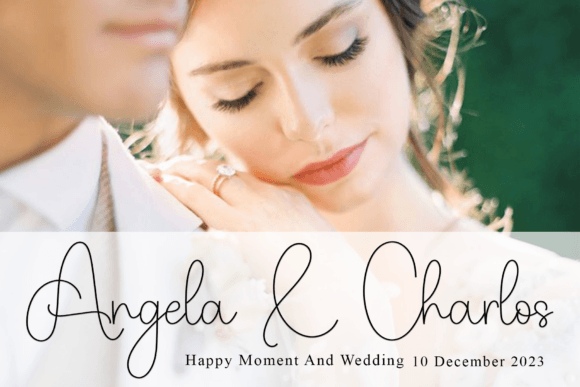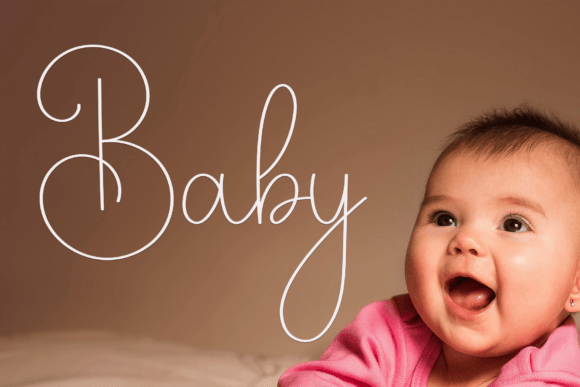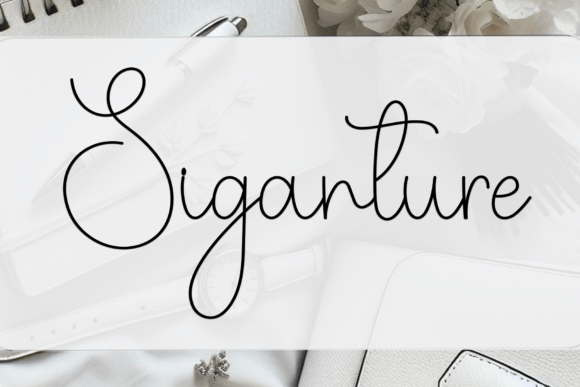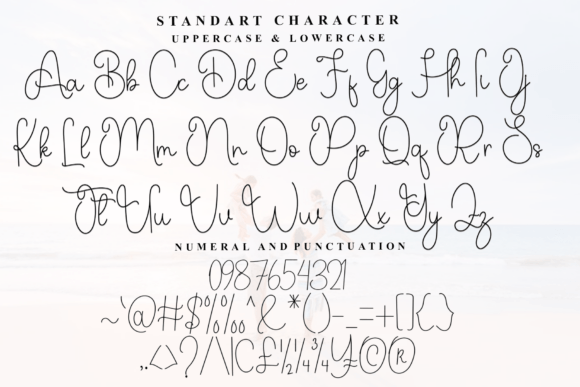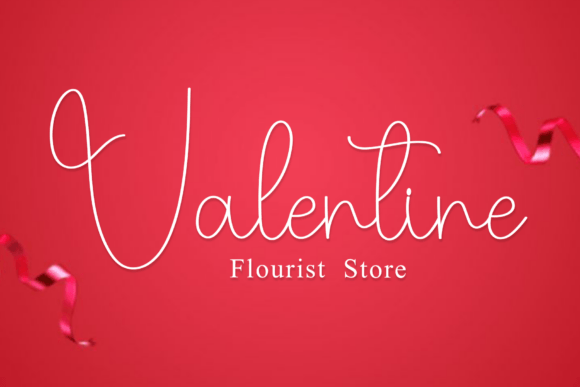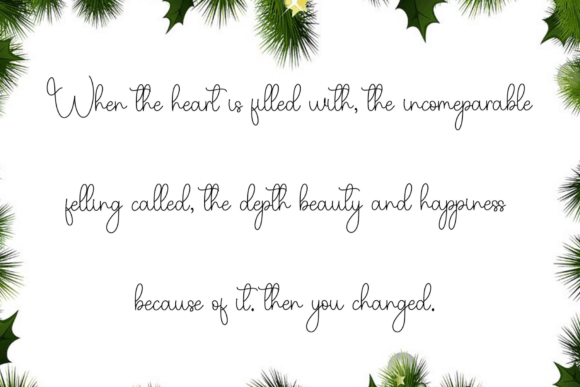
Introducing Bettalony Font: The Perfect Blend of Casual and Creative
Are you tired of using the same old fonts for your personal projects, invitations, and social media graphics? Look no further than Bettalony Font, a casual and creative font that exudes warmth and friendliness. Its round, playful strokes create a relaxed and approachable feel, perfect for designers and crafters looking to add a fun and unique touch to their designs.
The Characteristics of Bettalony Font
Bettalony Font is a hand-drawn font that boasts a charming, whimsical aesthetic. Its distinctive features include:
- Round, playful strokes that create a relaxed and approachable feel
- A casual and creative vibe that exudes warmth and friendliness
- A fun and unique touch that adds personality to any design
Perfect for Personal Projects and Designs
Bettalony Font is ideal for a wide range of personal projects and designs, including:
- Invitations: birthdays, weddings, baby showers, and more
- Social media graphics: add a personal touch to your posts and stories
- Personal blogs and websites: create a unique and approachable brand voice
- Crafts: perfect for DIY projects, such as handmade cards and gift tags
Bettalony Font offers a range of benefits for designers and crafters, including:
- Easily add a personal touch to your designs
- Create unique and eye-catching graphics
- Save time with a font that is easy to use and versatile
- Perfect for those who want to add a touch of whimsy to their designs
Tips for Using Bettalony Font
Here are some tips for getting the most out of Bettalony Font:
- Use it for headings and titles to add a pop of personality
- Pair it with other fonts for a unique and interesting contrast
Bettalony Font is a versatile and charming font that is perfect for designers and crafters looking to add a touch of warmth and friendliness to their designs. With its round, playful strokes and hand-drawn aesthetic, it’s ideal for personal projects, invitations, and social media graphics. So why not give it a try and see how it can elevate your designs?